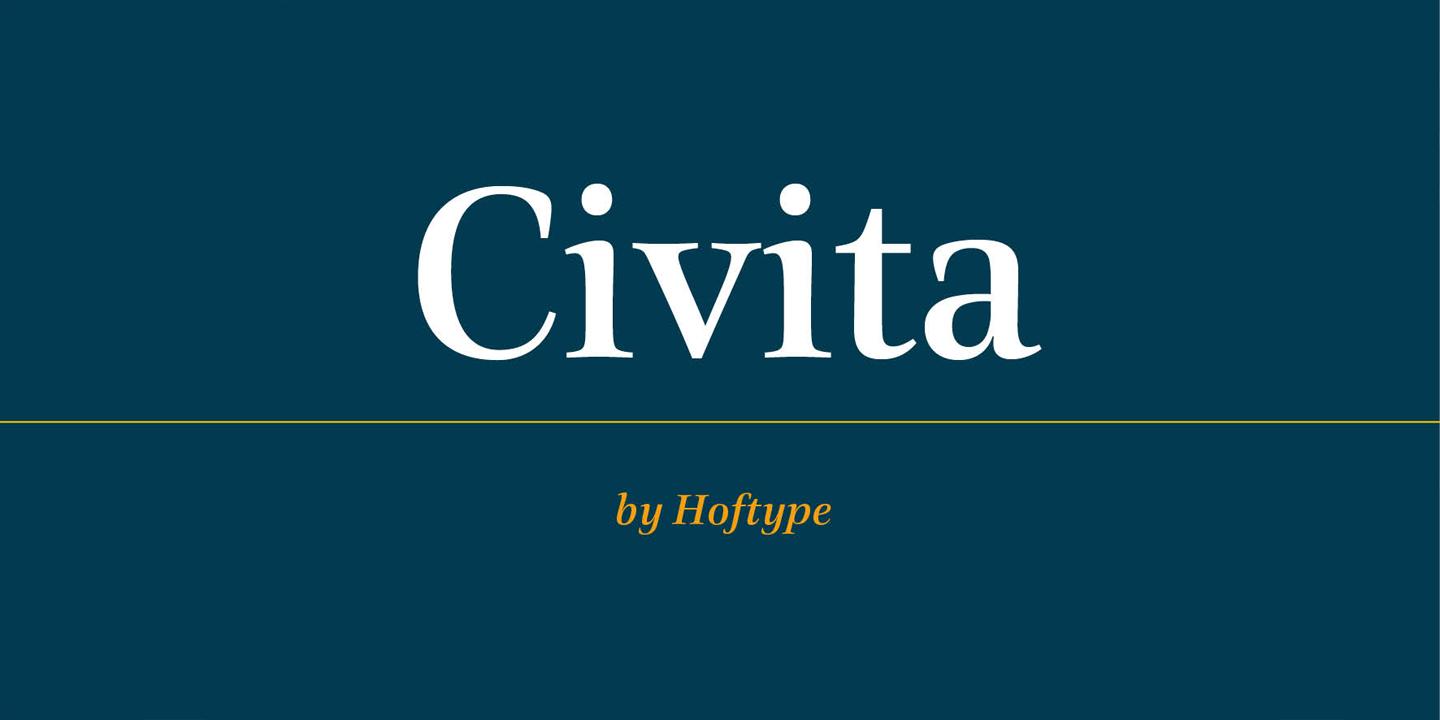
The Civita Font is ideal for sophisticated design projects including luxury brand identities, high-end fashion magazines, architectural presentations, cultural institution materials, fine art gallery catalogs, premium product packaging, elegant wedding invitations, and upscale hospitality branding. This refined typeface brings classical elegance and contemporary sophistication to any design project requiring distinguished, cultured typography.
What makes Civita Font so exciting is its masterful blend of classical Roman heritage with modern typographic refinement that creates an immediate sense of cultural sophistication and timeless elegance. The letters feature beautifully proportioned forms with subtle classical influences that evoke the grandeur of ancient civilization while maintaining contemporary readability. This distinctive cultural depth makes it perfect for brands and projects that want to communicate heritage, sophistication, and enduring cultural values.
The Civita Font family typically includes multiple weights from light to bold, complete with elegant italic variations and classical small caps options. Many versions feature extensive language support, refined ligatures, and cultural ornaments that enhance its authenticity for luxury and cultural applications.
Whether you're designing for cultural institutions, luxury brands, or heritage organizations, Civita Font Free Download offers the perfect solution for projects that need to convey classical refinement and cultural sophistication. This font transforms standard text into distinguished designs that immediately communicate cultural depth, timeless elegance, and sophisticated taste to audiences appreciating classical beauty and refined artistic expression.